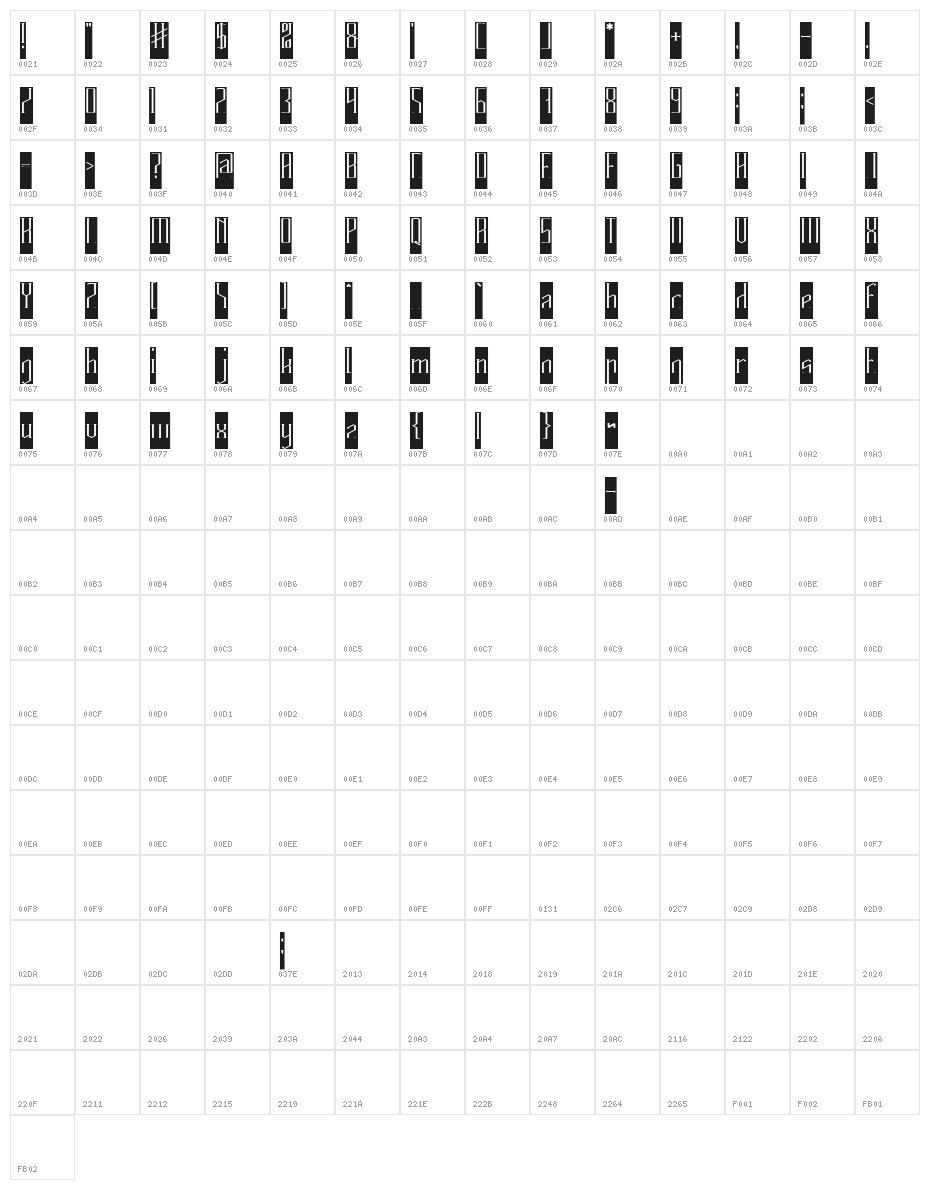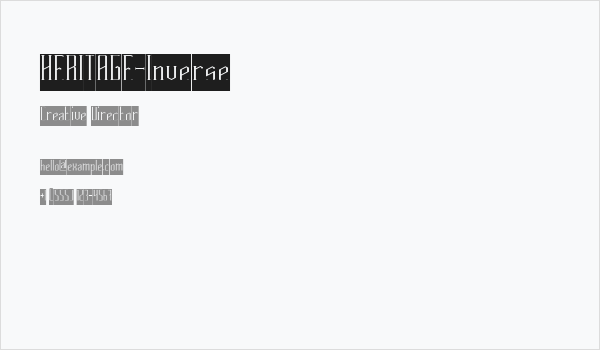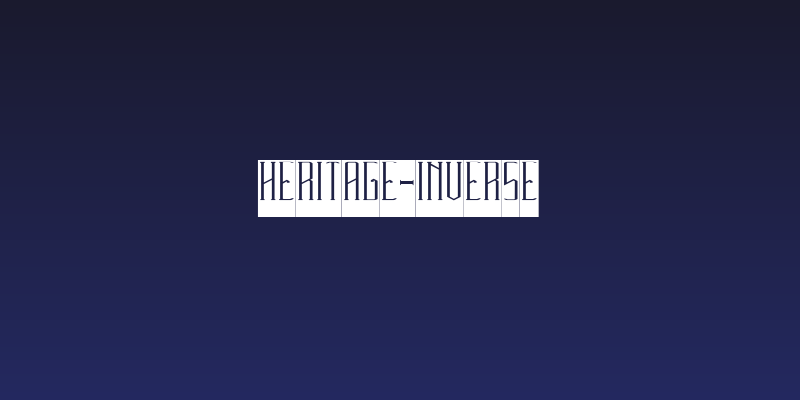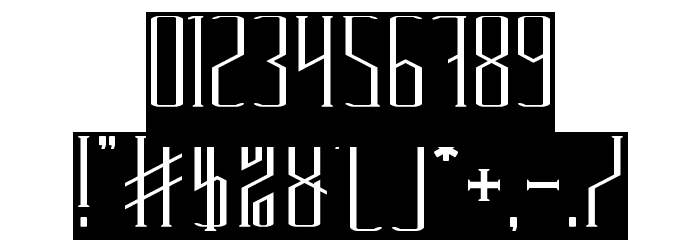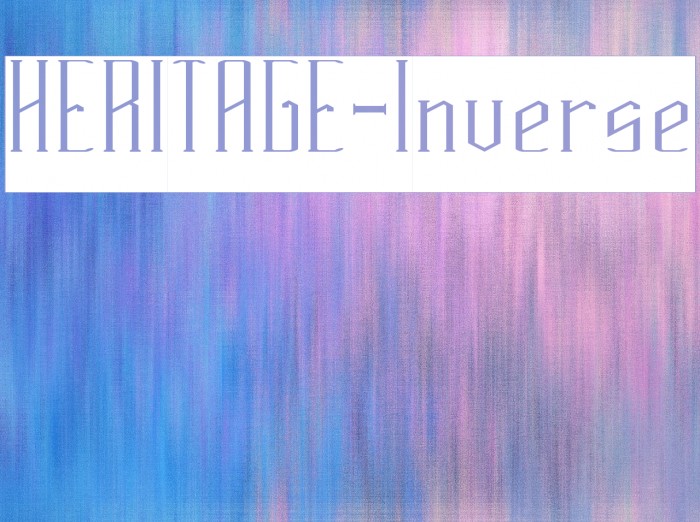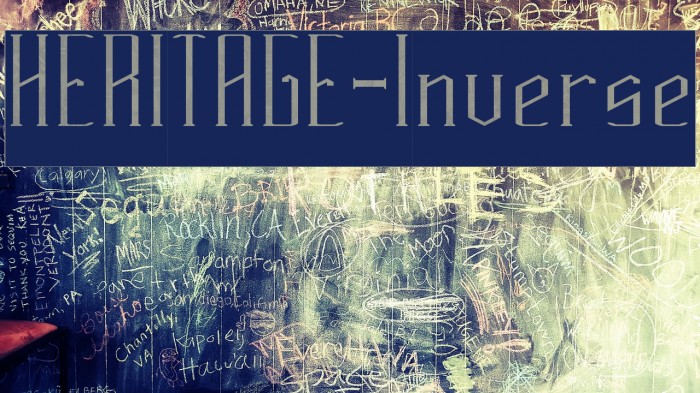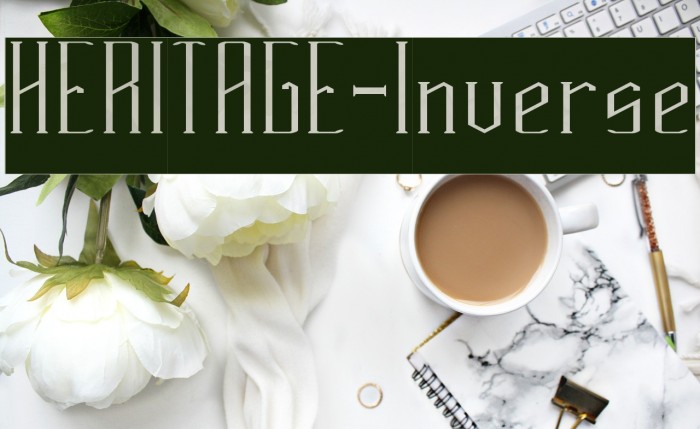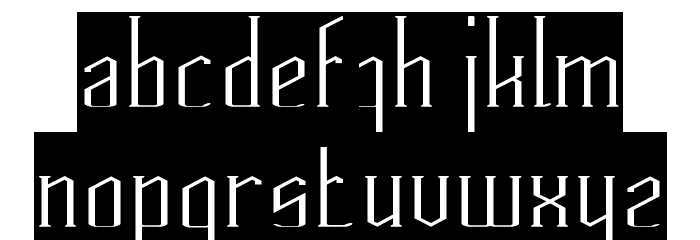
HERITAGE-Inverse Font
HERITAGE-Inverse Description
This font features a unique blend of modern and vintage elements, characterized by its tall, narrow letterforms and sharp, angular serifs. The uppercase letters exhibit a strong vertical emphasis, while the lowercase letters maintain a consistent height, contributing to a cohesive and structured appearance. The numerals are designed to match the overall style, with a distinct geometric influence. Special characters are crafted with the same attention to detail, ensuring uniformity across the typeface. The font's design is both elegant and bold, making it suitable for a variety of applications where a striking visual impact is desired.